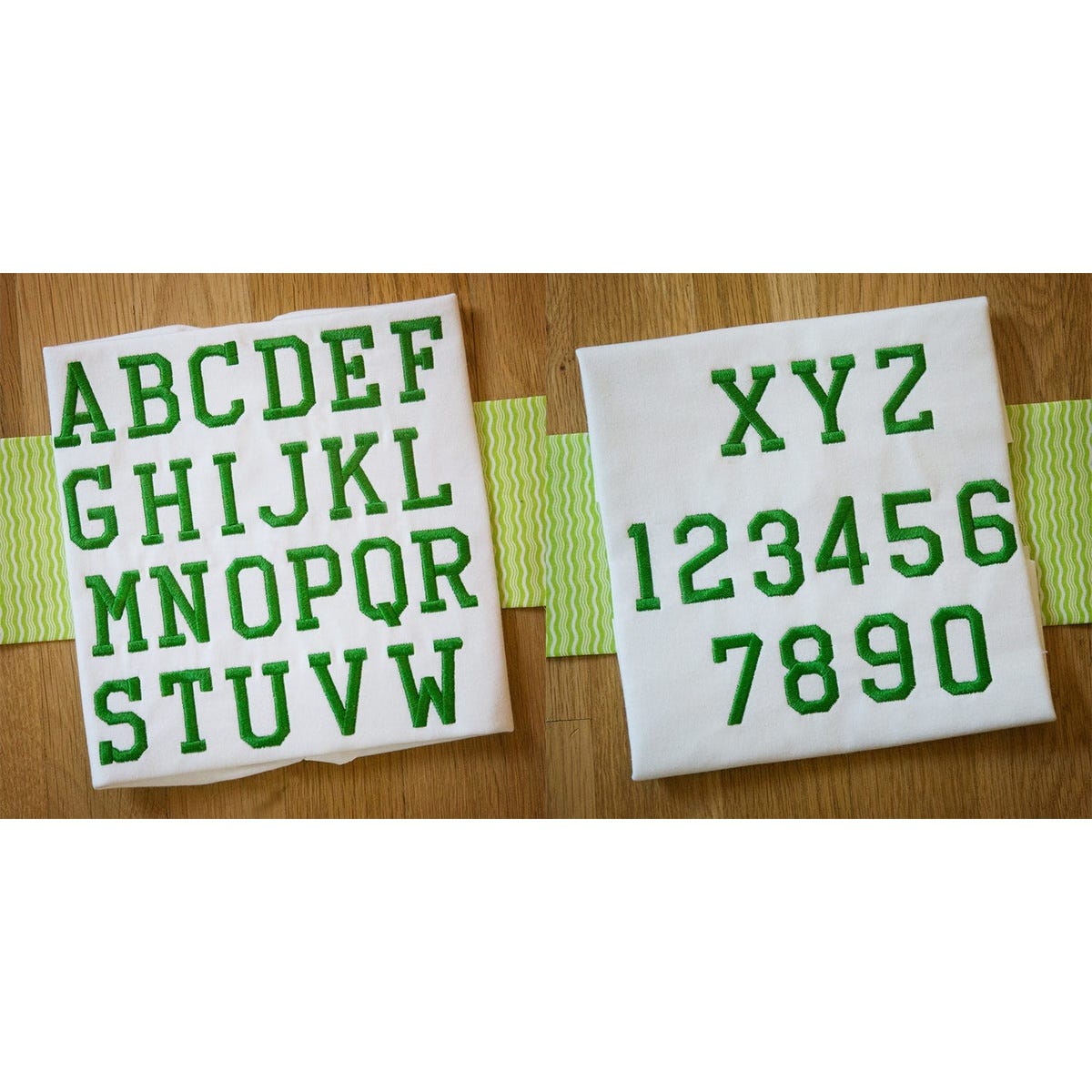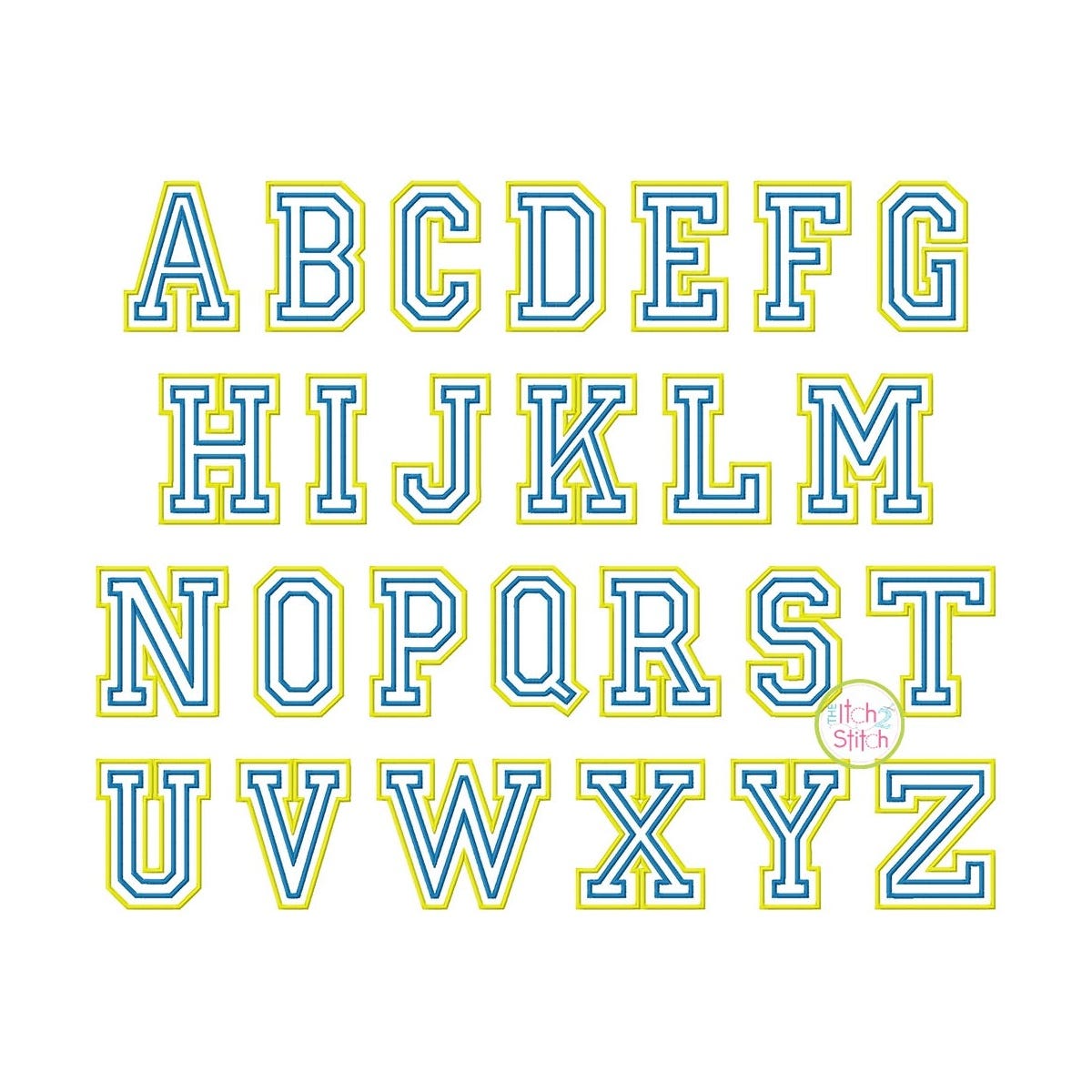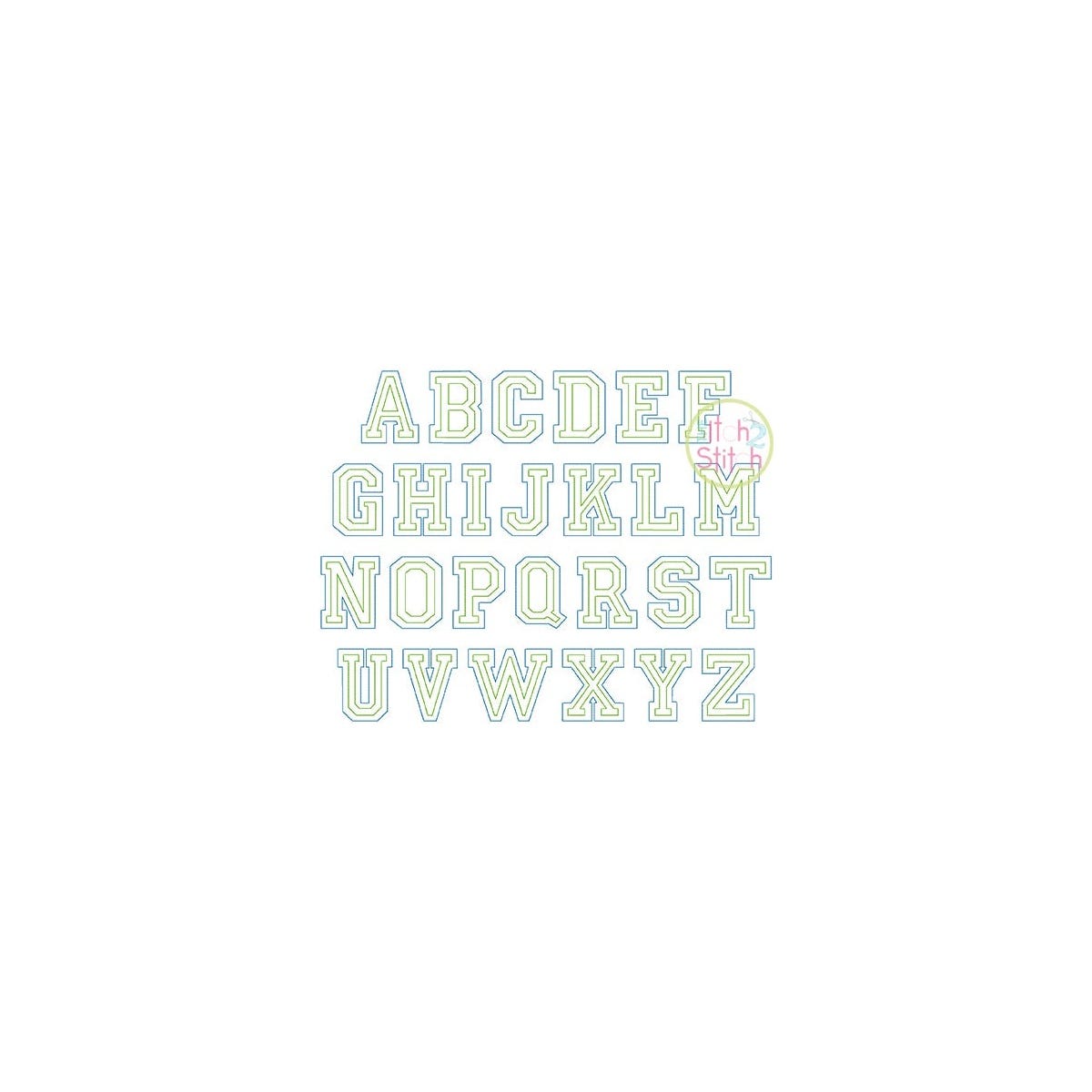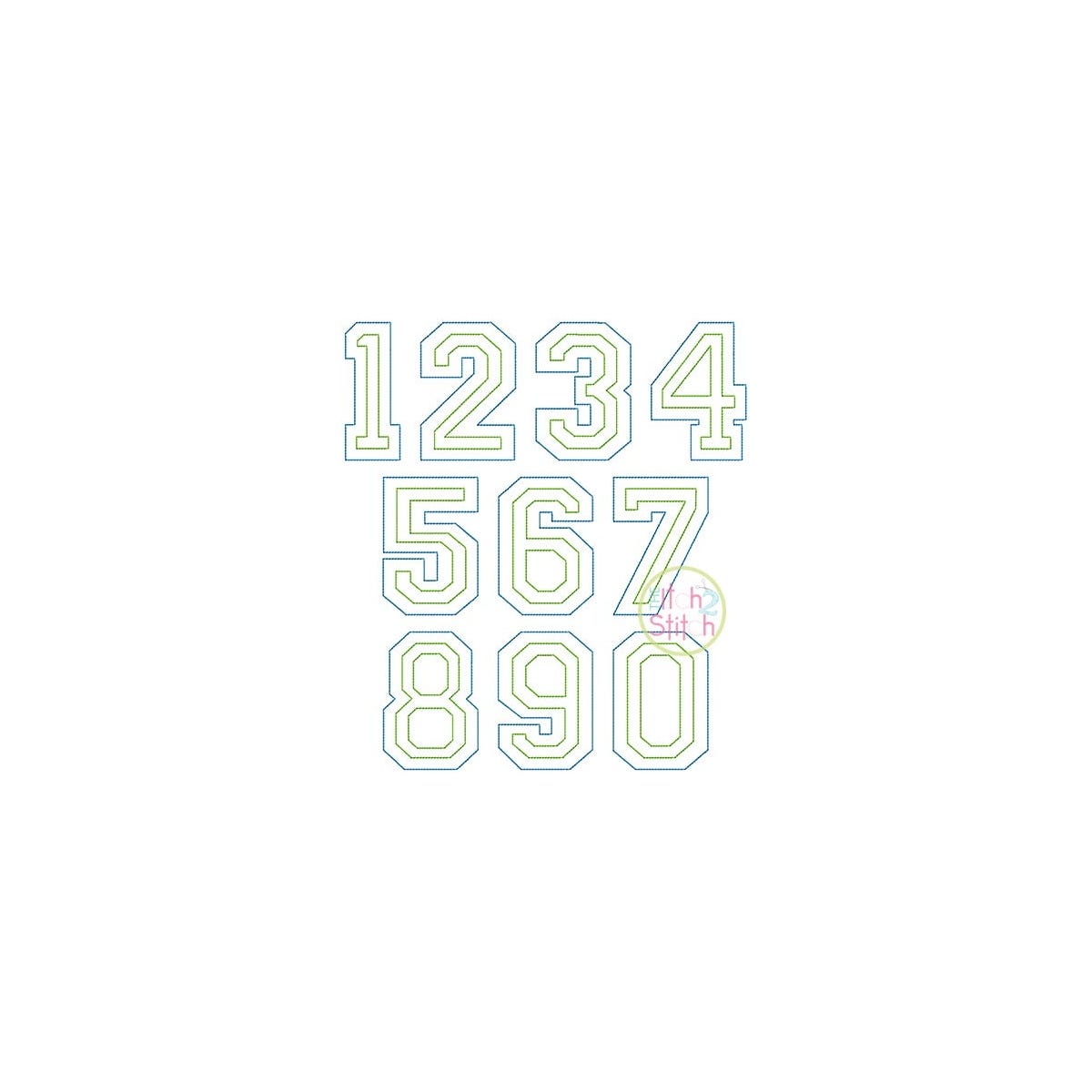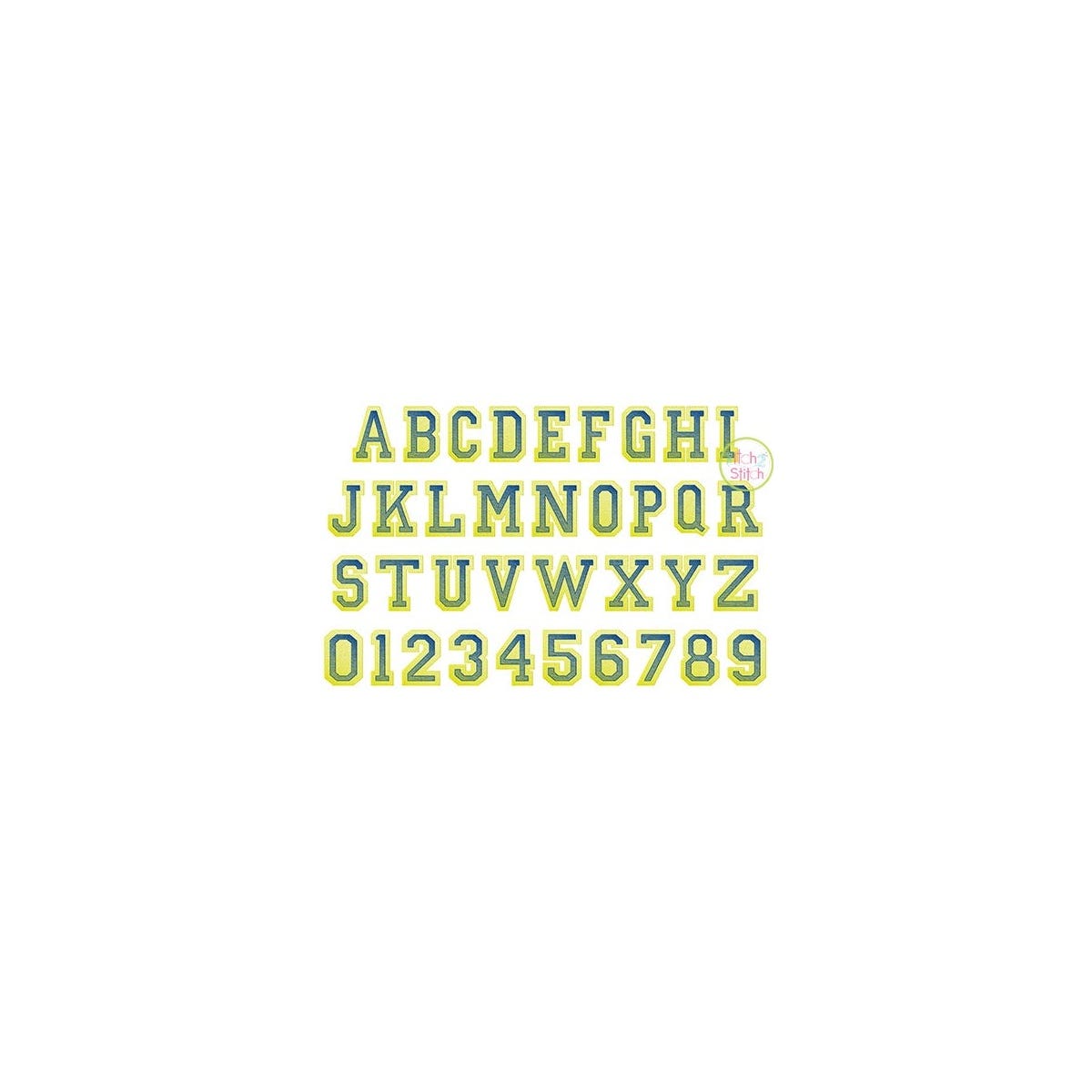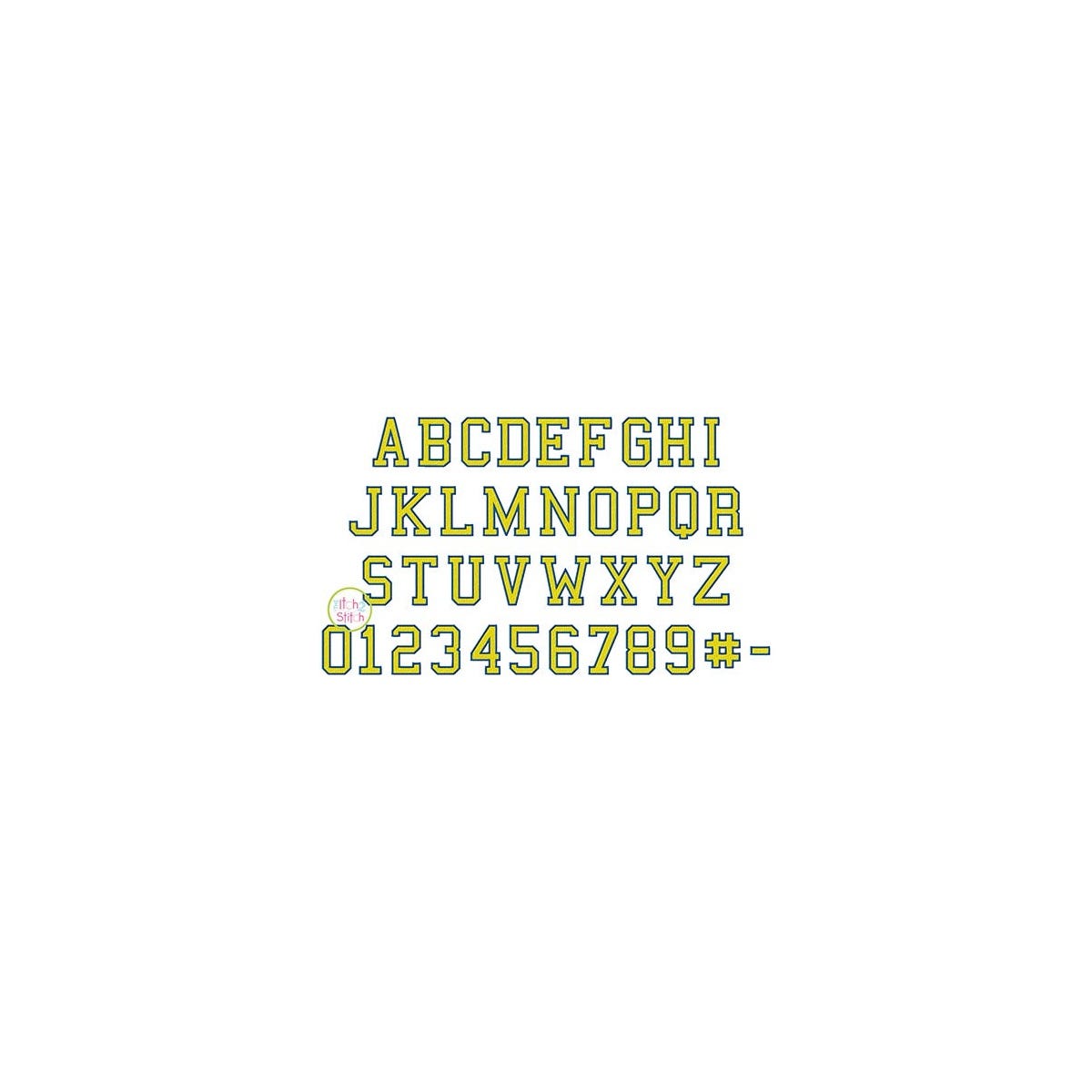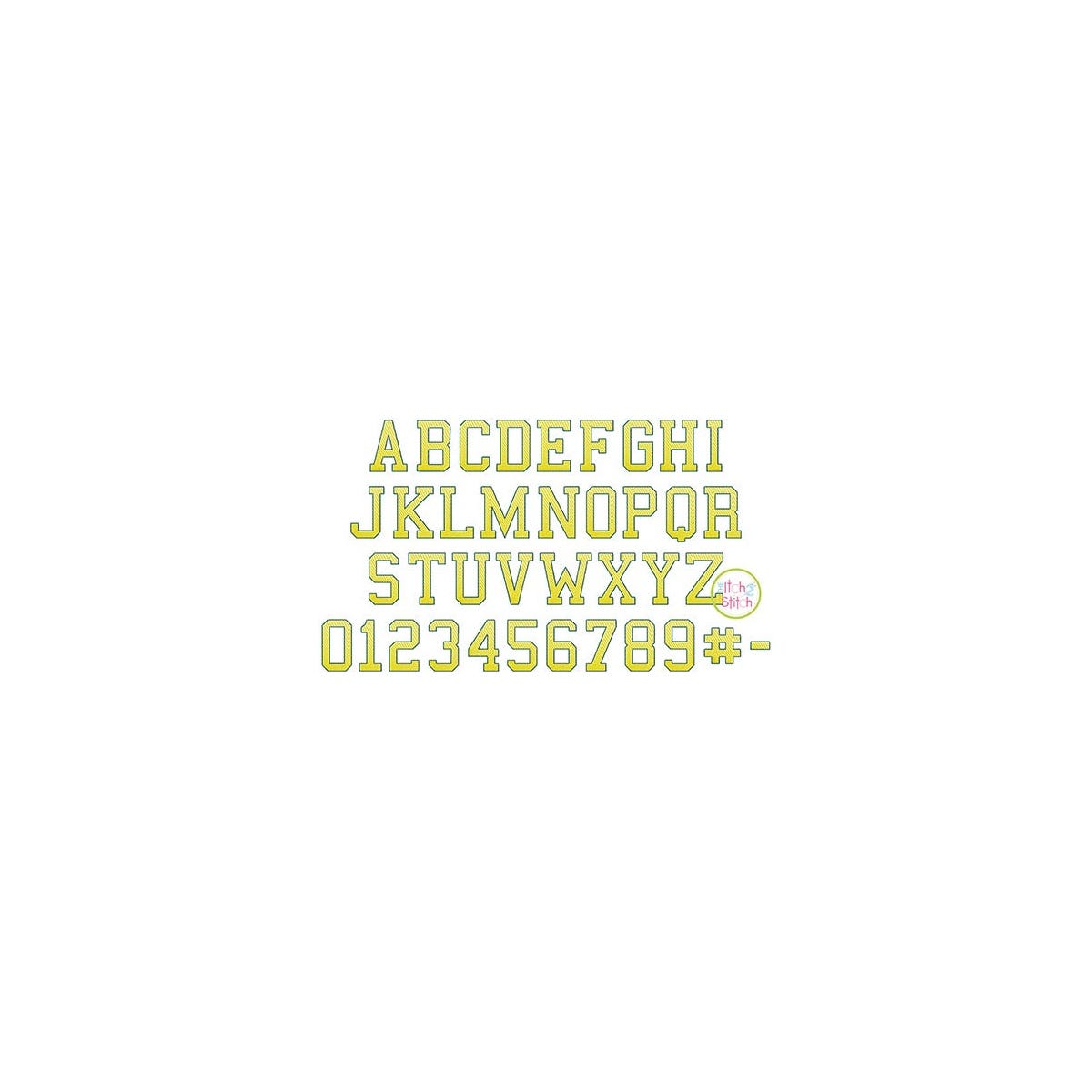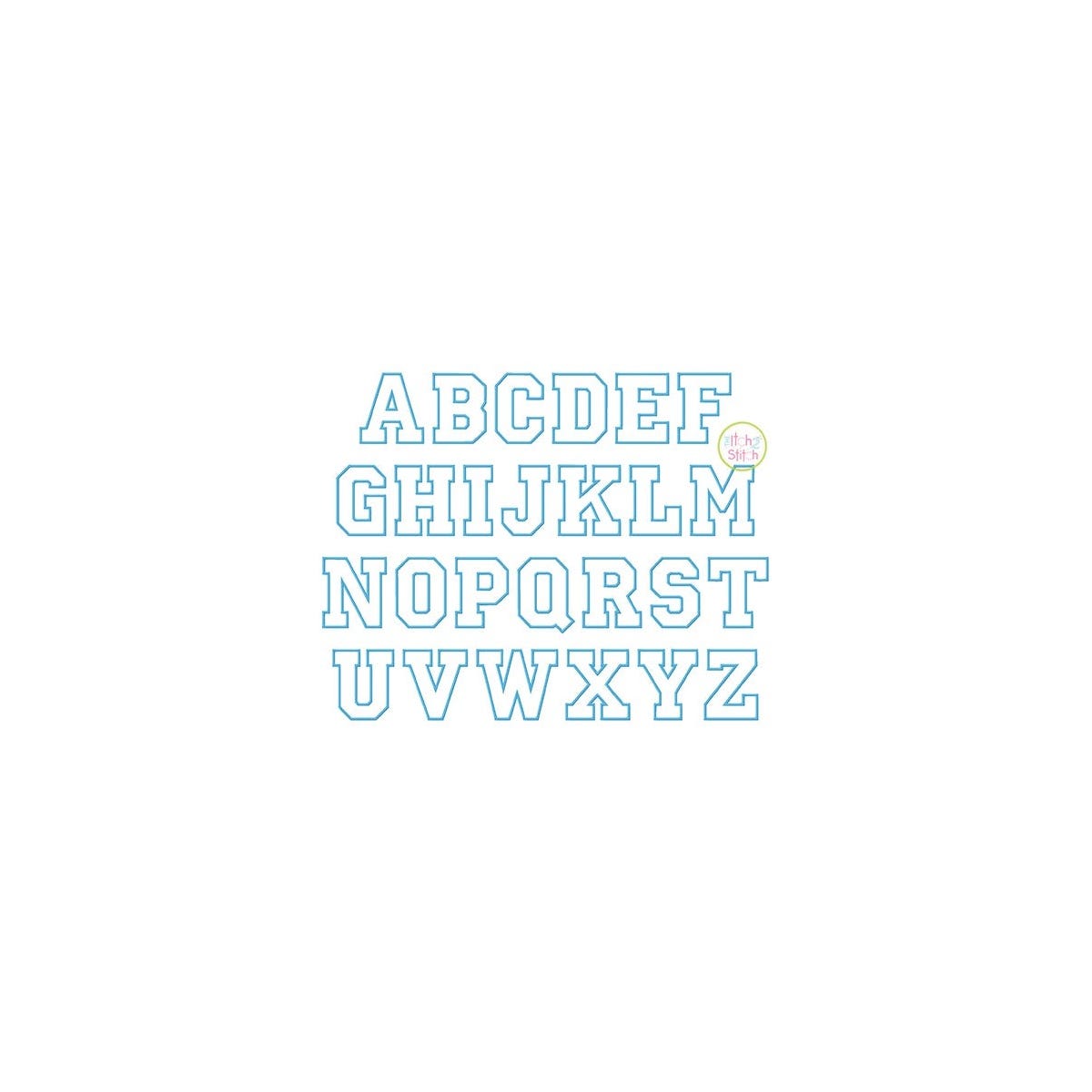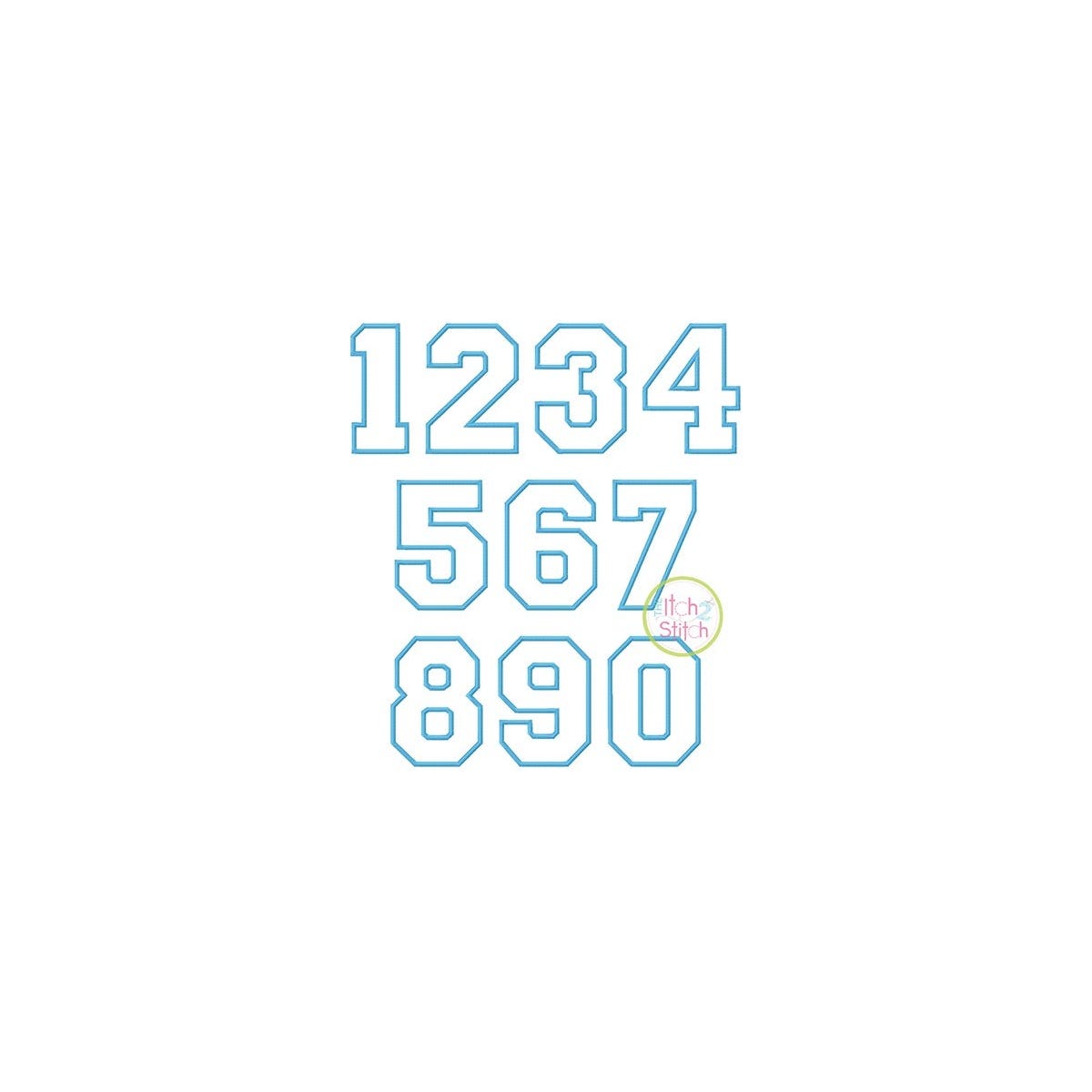
Give your personalized projects a bold, spirited look with the Varsity Embroidery Font Bundle! From classic collegiate lettering to applique, sketch, filled, and specialty styles, this versatile lineup offers plenty of ways to make names, initials, and numbers stand out.